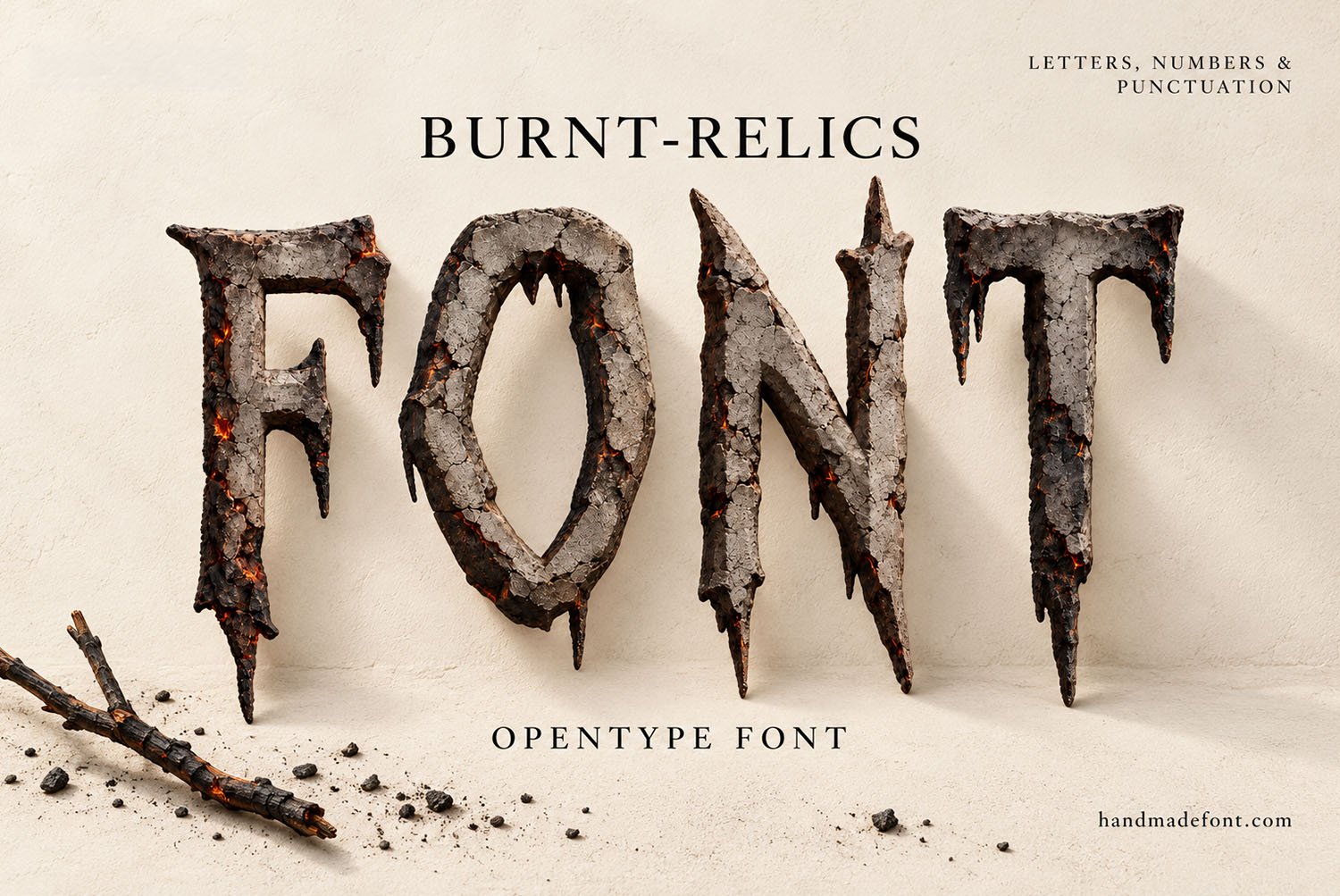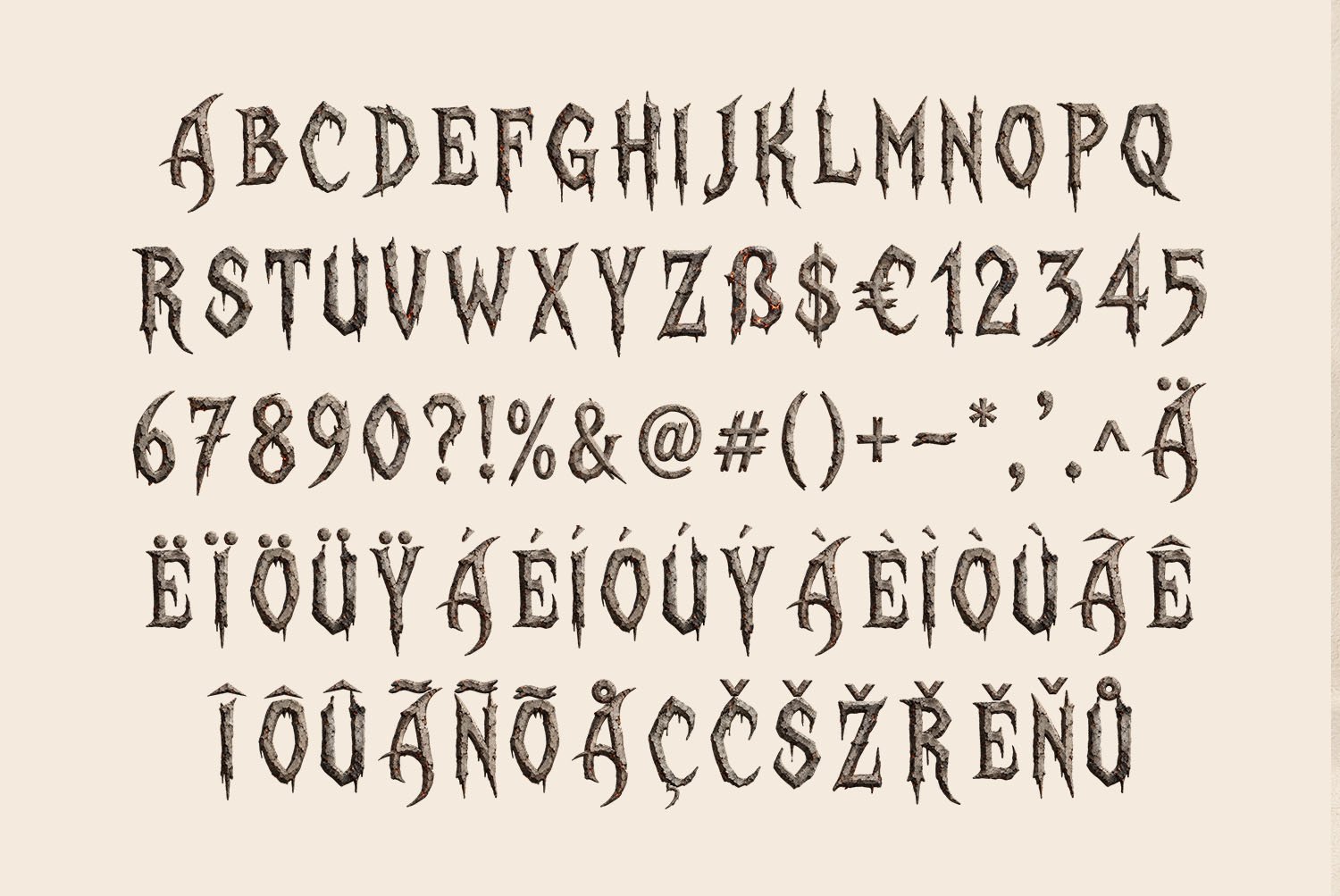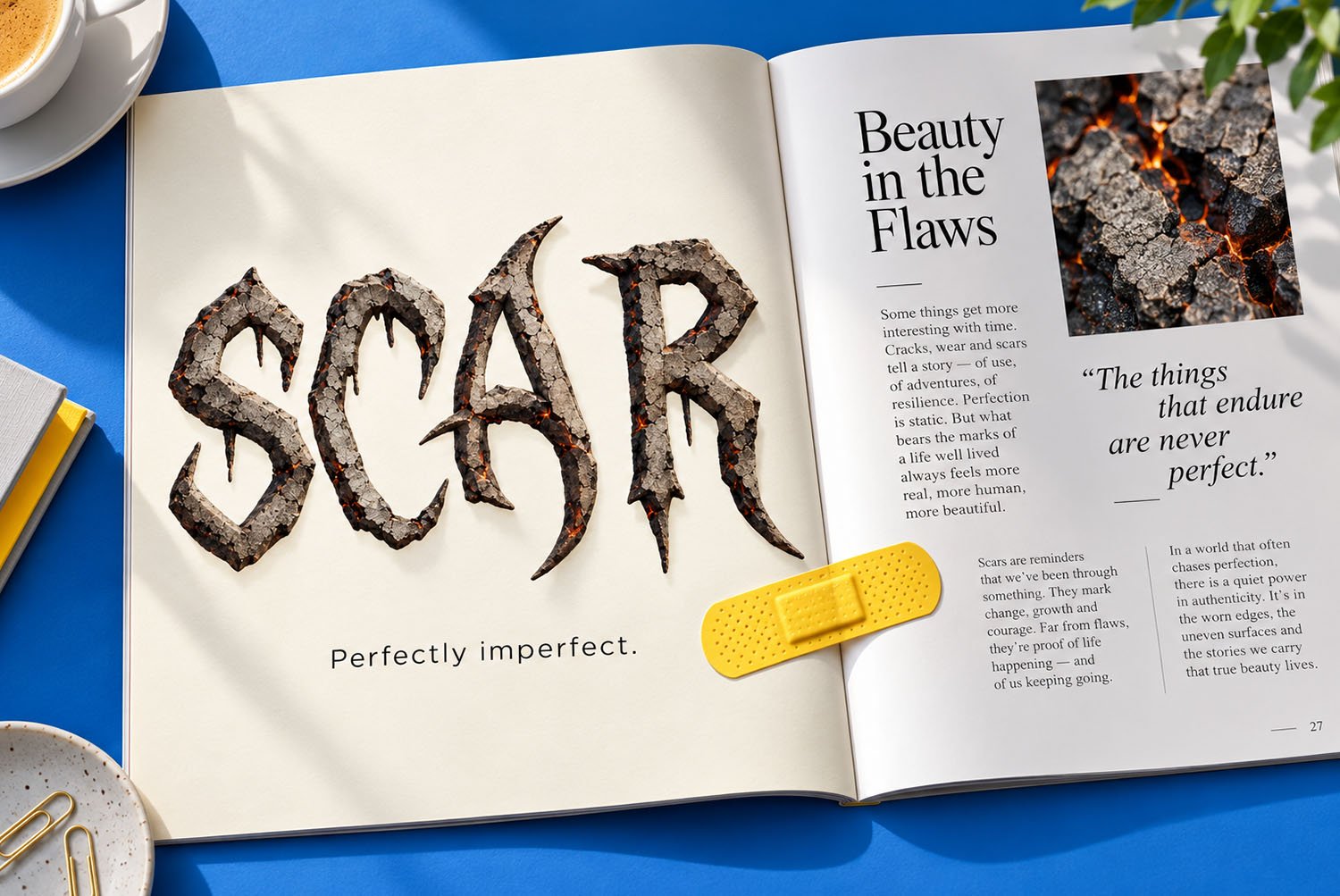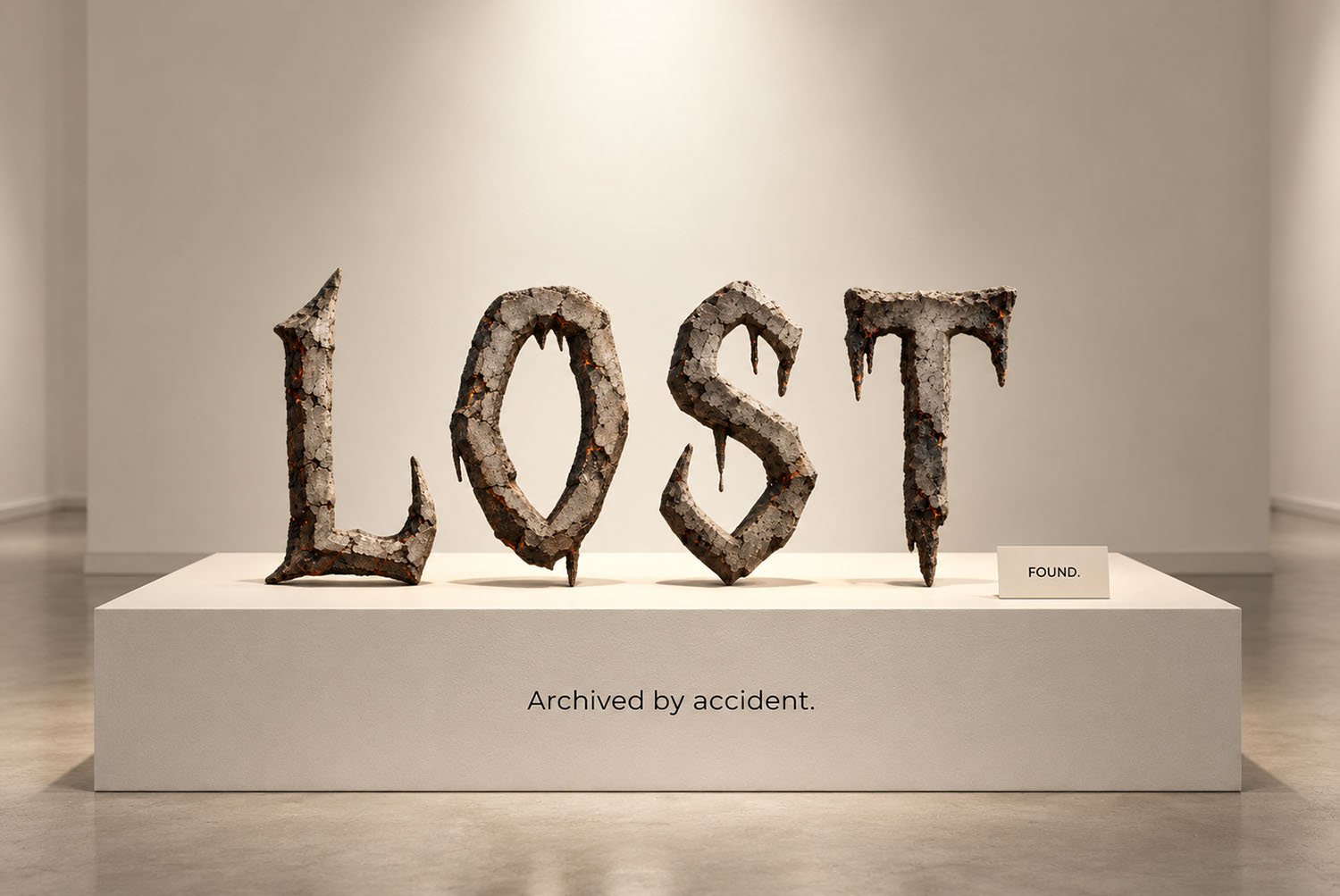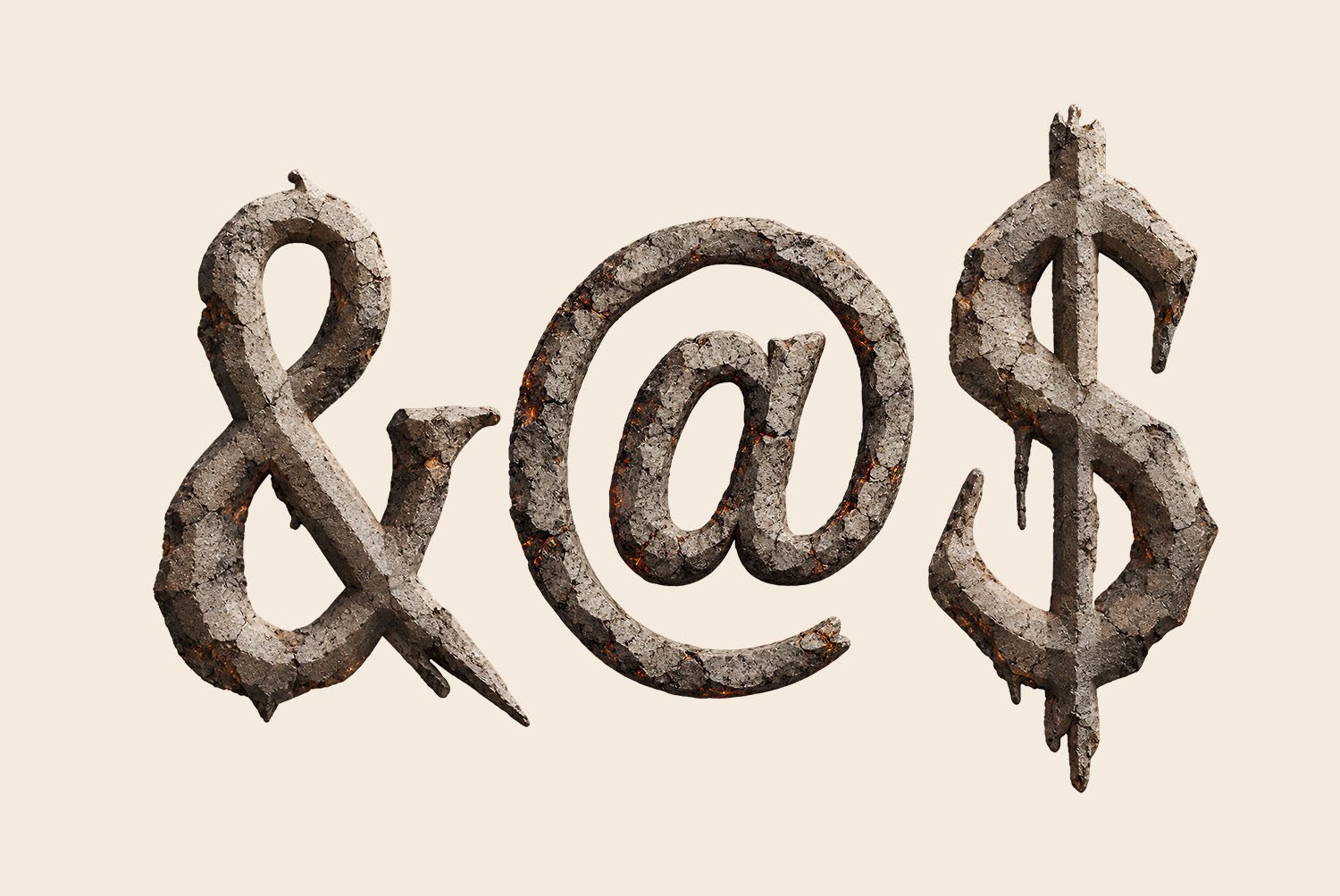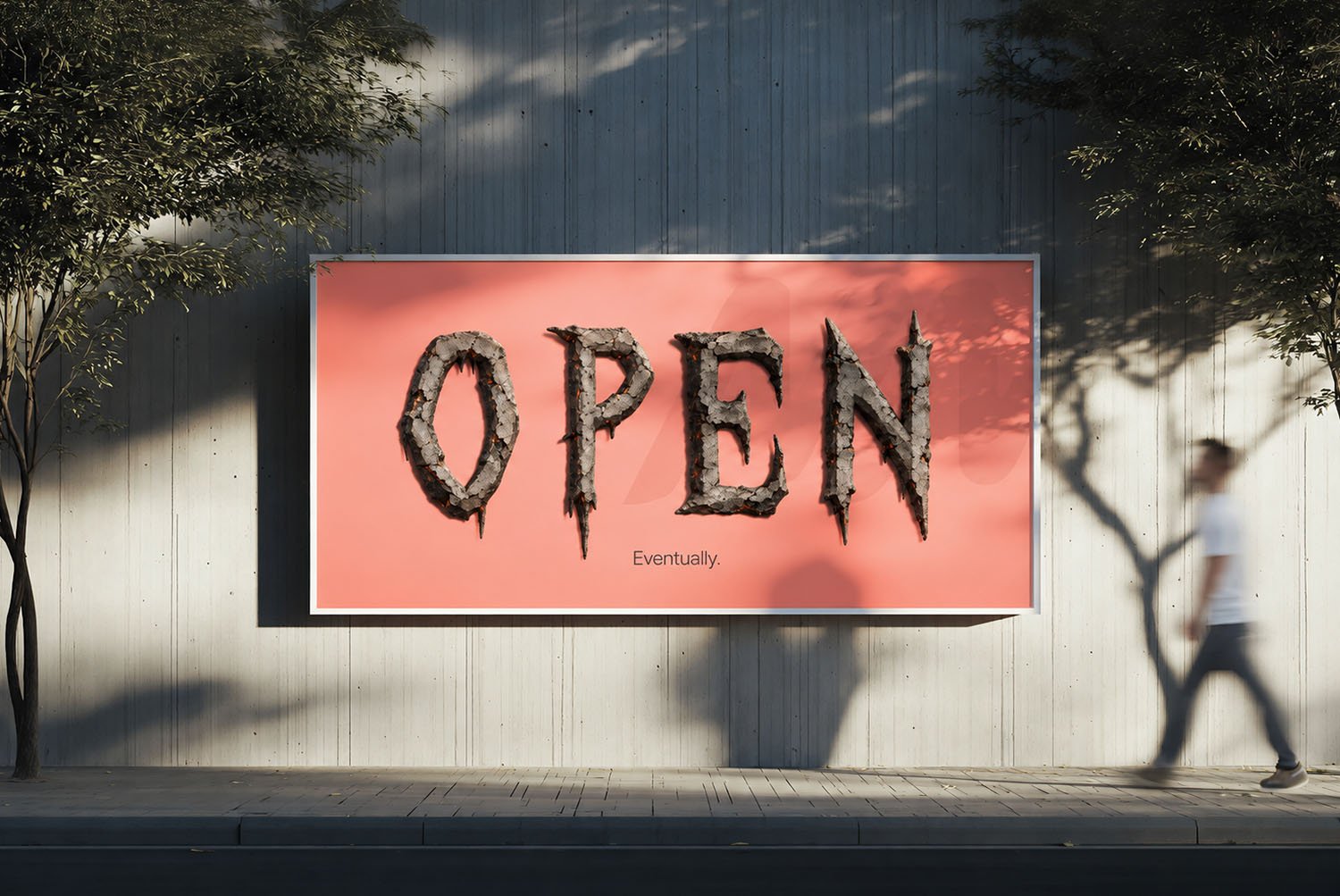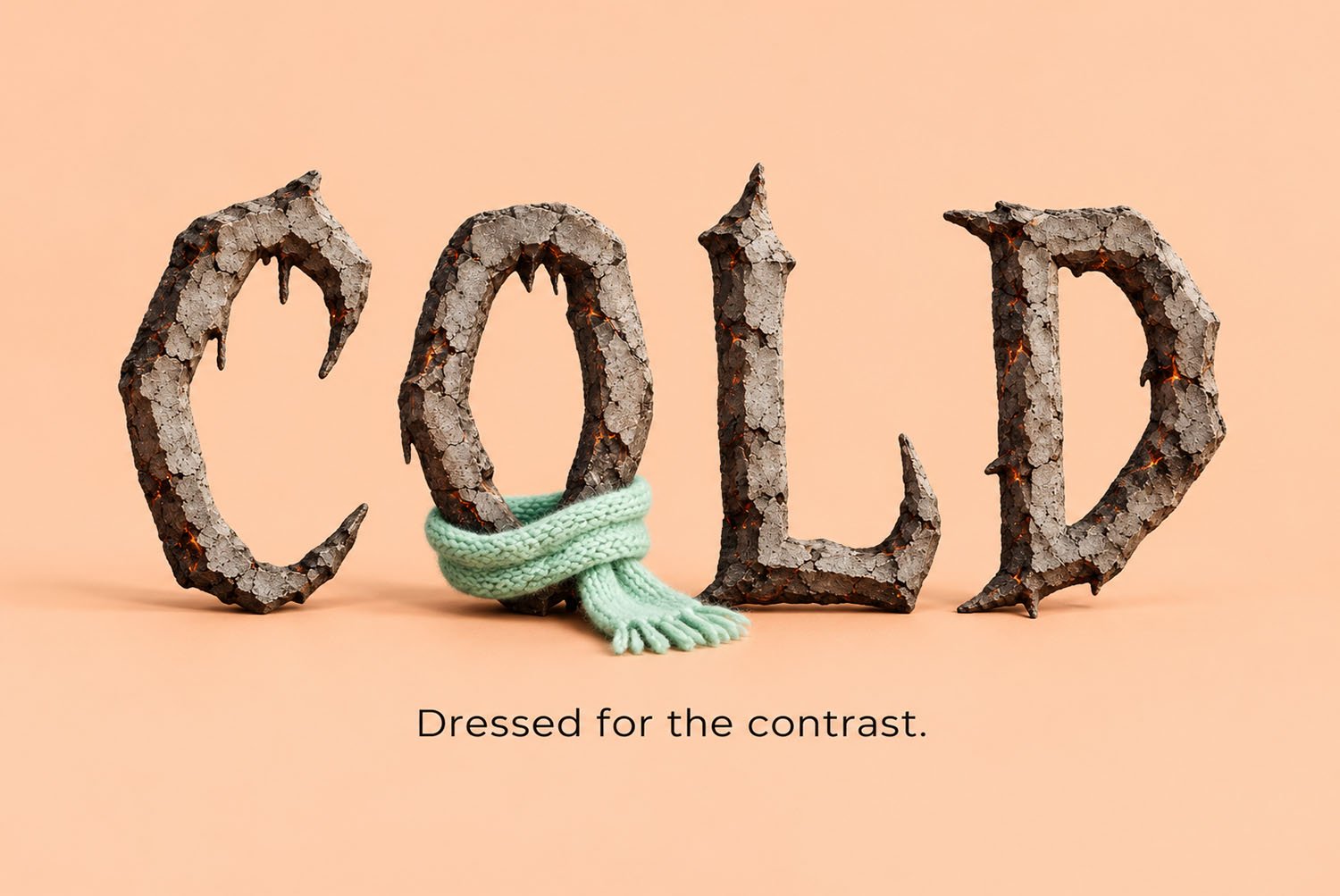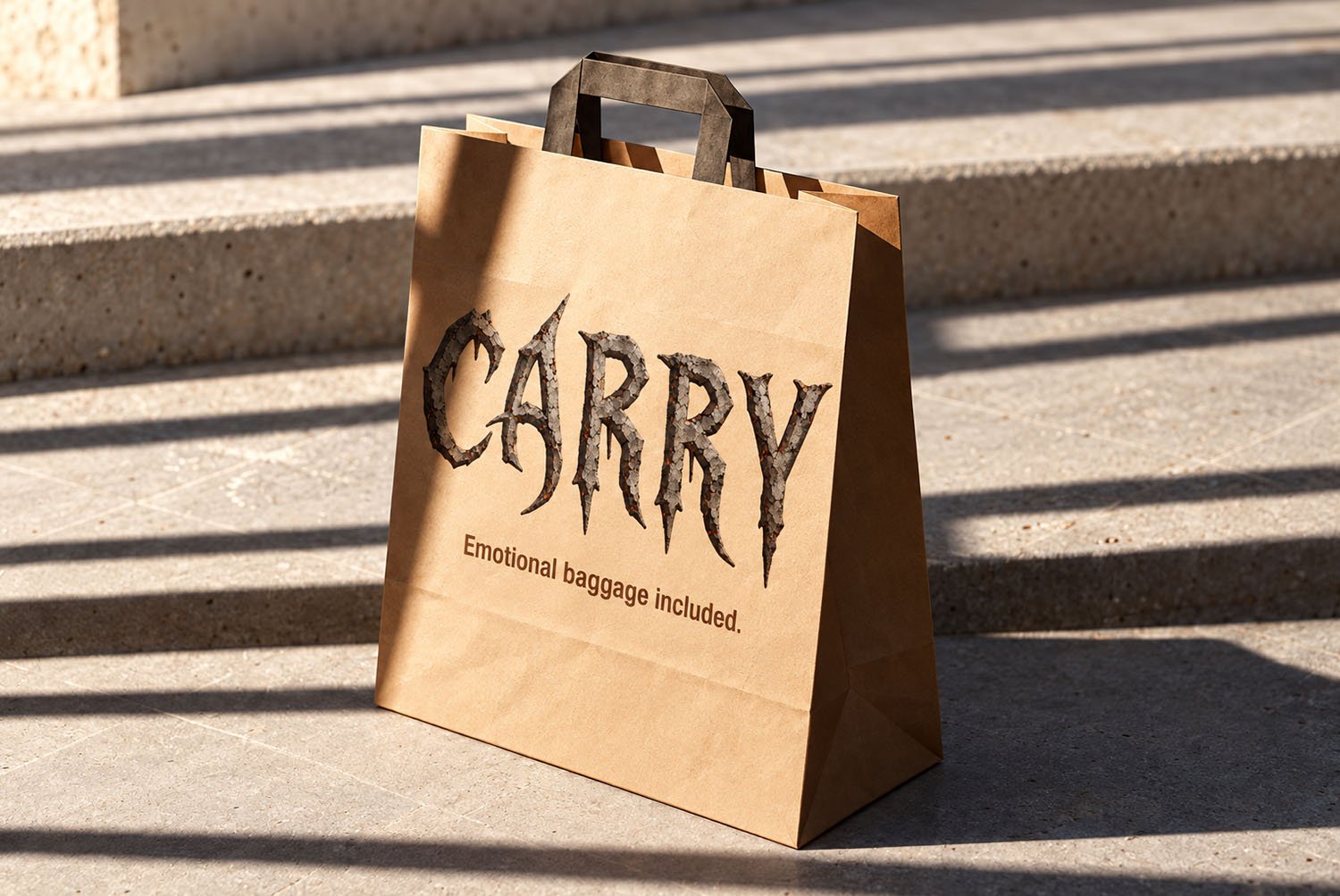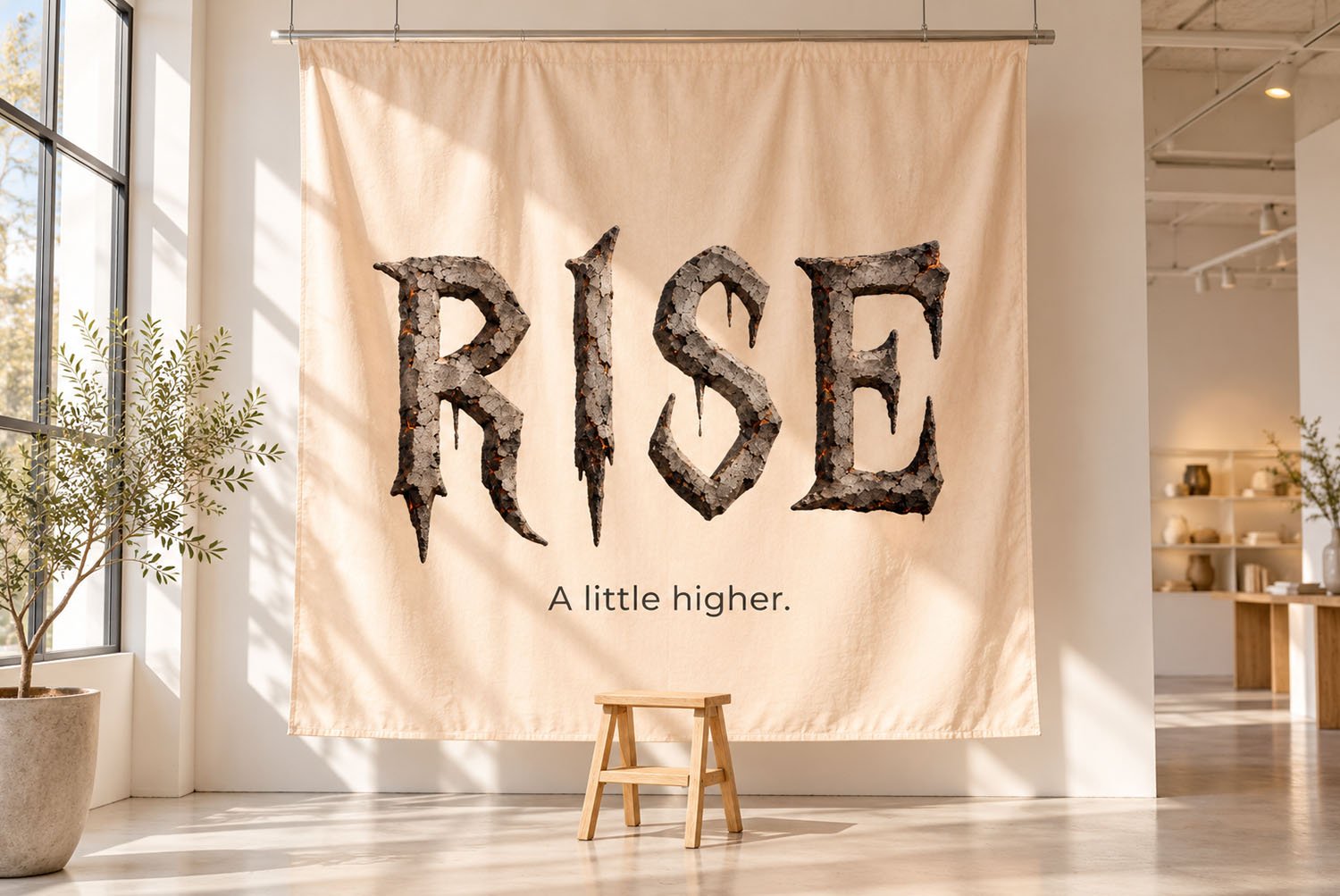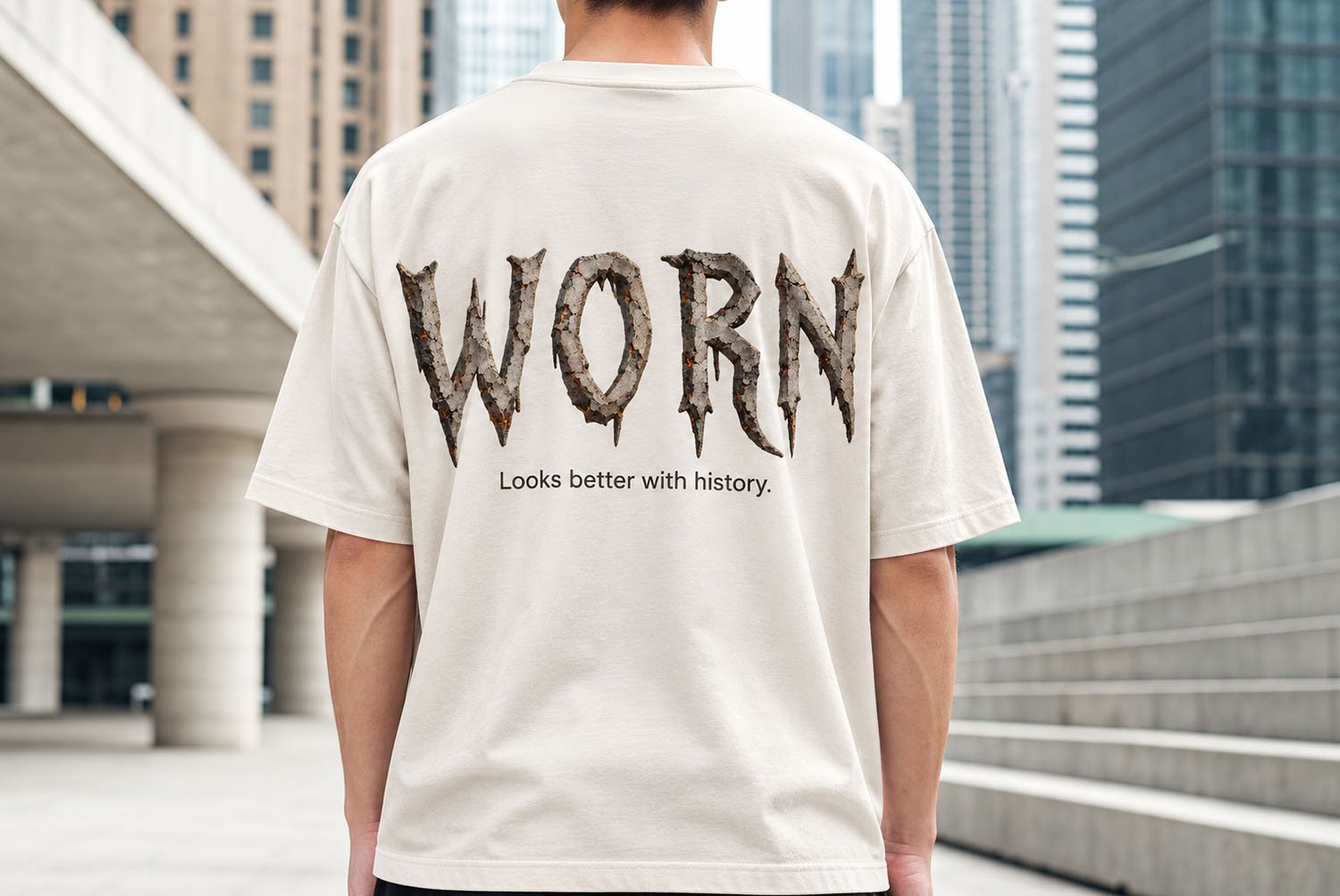
Burnt Relics Font
Burnt Relics Font brings the raw character of fire-scarred wood to your designs. Its dark, weathered letterforms suggest ancient ruins, drifting ash, smoky textures, and objects rescued from the flames. This expressive display font is perfect for horror posters, Halloween graphics, album covers, cinematic titles, game artwork, and bold branding. The package includes an OTF font for convenient typing, plus every letter as an individual PNG with a transparent background. Use the PNG characters freely in layered layouts, collages, and custom compositions. Burnt Relics makes every project dramatic and unforgettable.